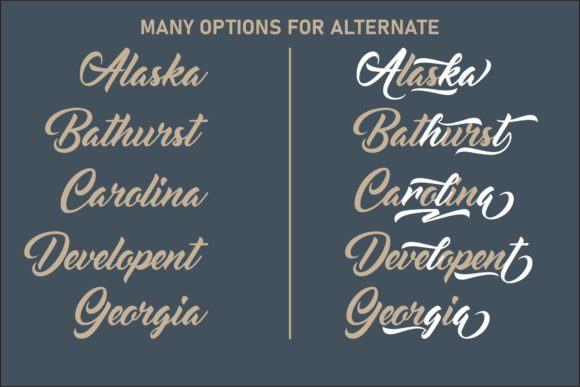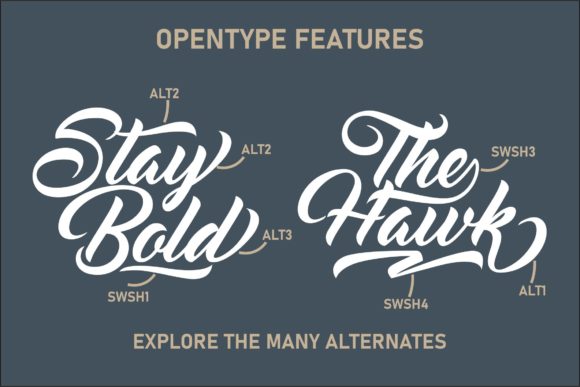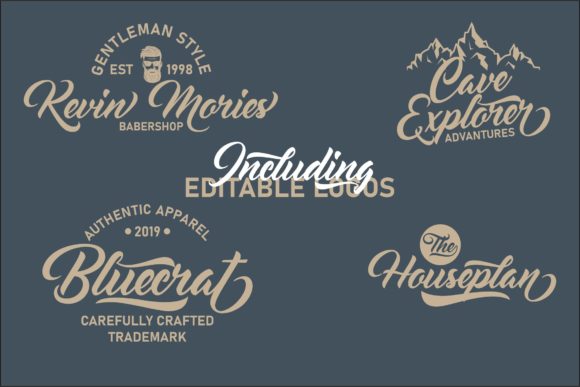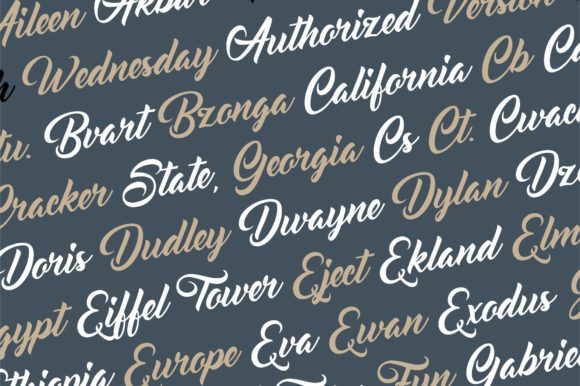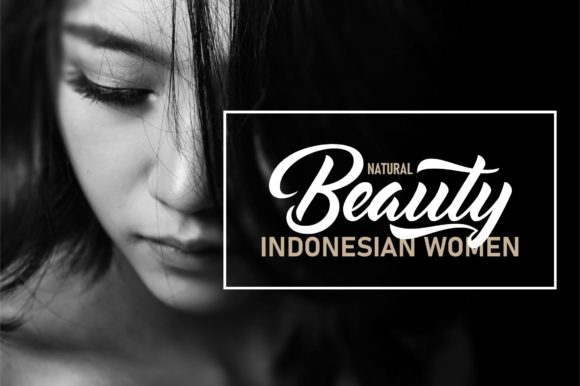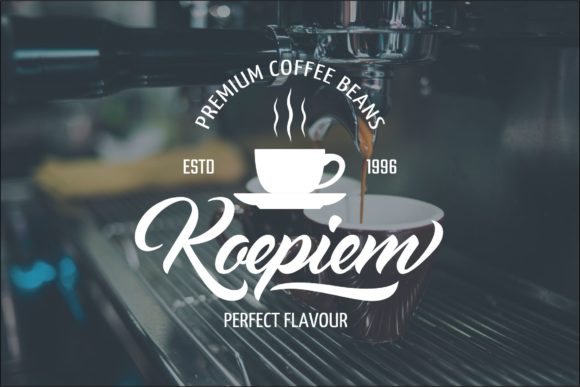
Introduction to Rougbelt Font
Rougbelt is a gorgeous and bold handwritten font, crafted to give your headlines and logotype projects a retro touch.
This font reads as strong, confident, and dynamic and can add tons of nostalgic character to your designs This font is PUA encoded which means you can access all of the amazing glyphs and ligatures with ease.
Key Features of Rougbelt Font
Why Choose Rougbelt Font?